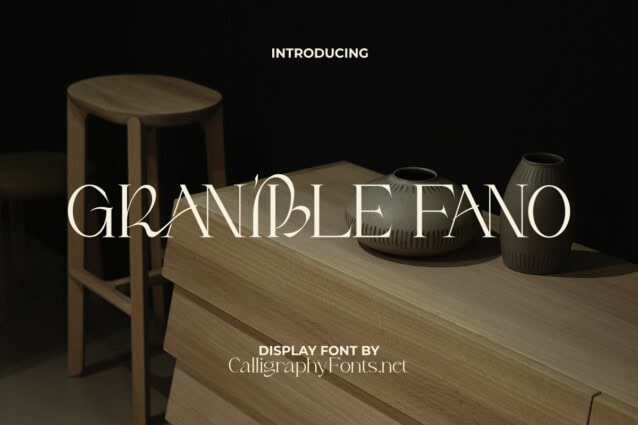
Granible Fano Font
Granible Fano Font is an elegant and stylish display font. It has a luxurious look that can be used for your design needs. This type of font is very suitable for blogs, brochure, card designs, furniture, headers, invitations, label, logos, quotes, screen print, signage, social media feed, stationery, stickers, tags, titles, watermarks, websites, and much more.